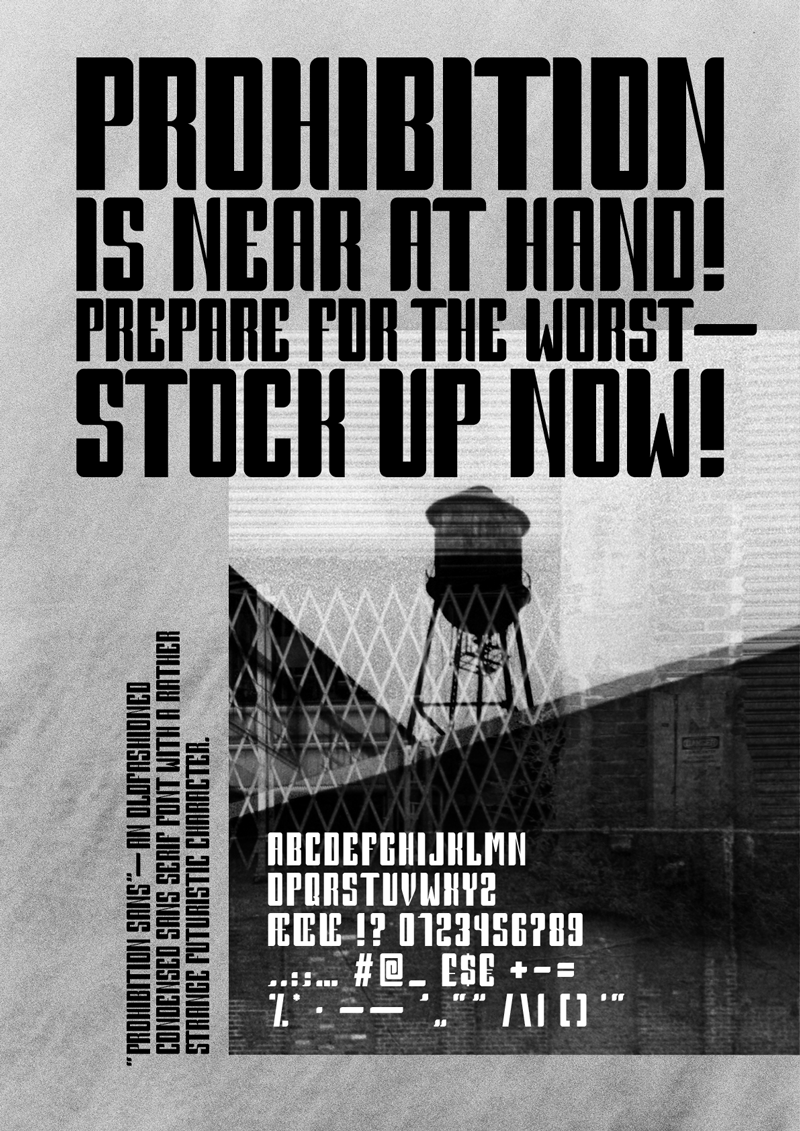
�Prohibition Sans��an oldfashioned condensed sans serif font with a rather strange futuristic character. Love it or hate it � like the prohibition itself. This font �Prohibition Sans� is under the Creative Commons license and can be used non-commercially, as long as it is passed along unchanged and in whole, with credit to the following name: �Nickel Beryllium� If you are looking to use this font commercially please contact me before using it: nickelberyllium@gmail.com instagram.com/muillyreblekcin Enjoyment and donations are appreciated. |